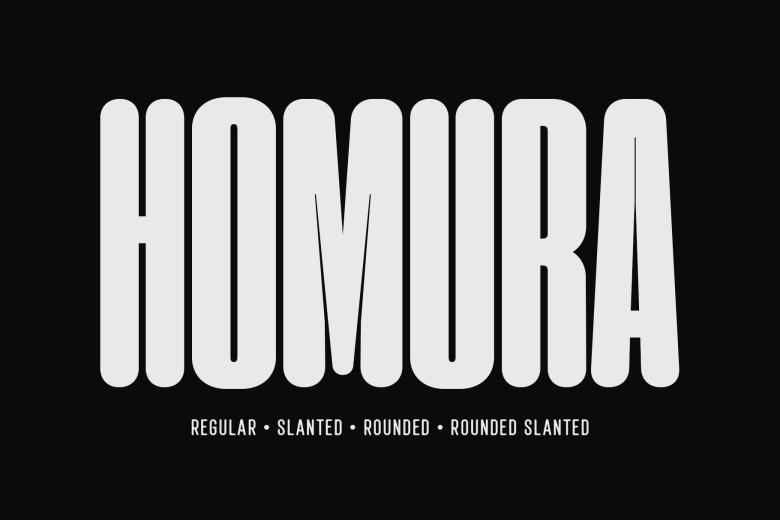
Homura Font
Homura is an attractive sans-serif display typeface inspired by headlines found in newspapers and contemporary typography. Its compact style, bold character and classy flair makes for an appealing minimalist aesthetic. PUA encoded, Homura font can easily accommodate all types of designs!
Homura Sans Serif Font